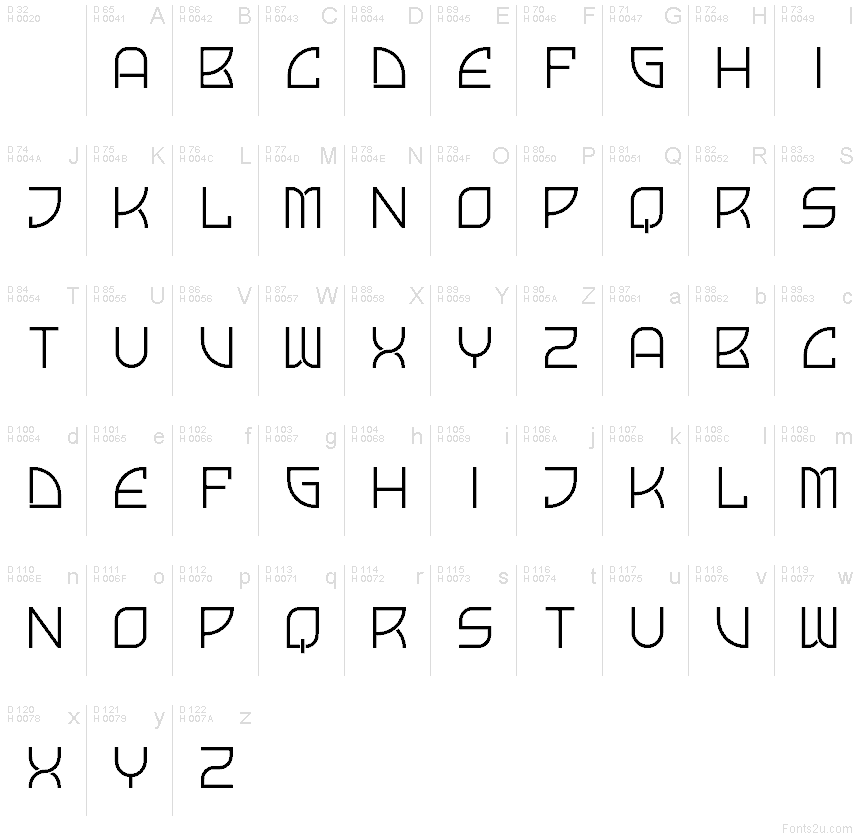
Vineyard Book Thin Regular
Vineyard Book Thin font by Vladimir Nikolic is a futuristic display typeface from the Vineyard family. The font combines minimalist letters with clean lines, where every single character shows elegance and refinement at its finest. Featuring light weight and lightly geometric characters, this modern classic font remains visually interesting despite being perfectly readable.